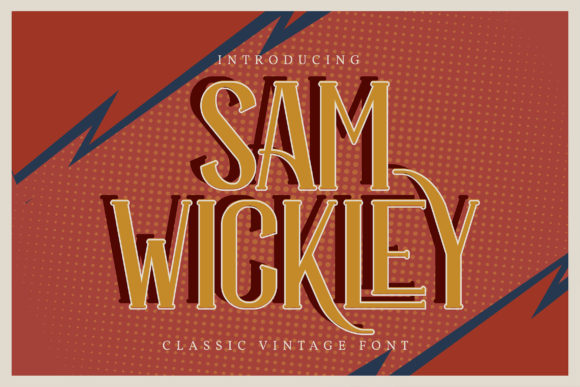
In a world where visual aesthetics reign supreme, introduce Sam Wickley, the serif font that transcends the boundaries of ordinary typography. This elegant and neat creation by Vunira is more than just a font; it's an invitation to transform your creative visions into timeless masterpieces.
With its tall and adaptable nature, Sam Wickley seamlessly blends sophistication and versatility, making it the perfect font for wedding menus, invitations, and any design project craving a touch of timeless grace.
Adorn your wedding menus with the charm of Sam Wickley, and watch as your guests are captivated by the elegance of your choice. Its tall stature lends an air of grandeur to the simplest of words, transforming them into visual poetry.
As you navigate the world of design, let Sam Wickley be your trusted companion, guiding you through the realms of creativity with its effortless adaptability. From brochures and flyers to social media posts and branding materials, this font possesses the versatility to elevate your designs to new heights.
Experience the transformative power of Sam Wickley and unlock a world of design possibilities. Embrace the beauty of serif typography and witness how this font breathes life into your creations, captivating audiences with its timeless charm.